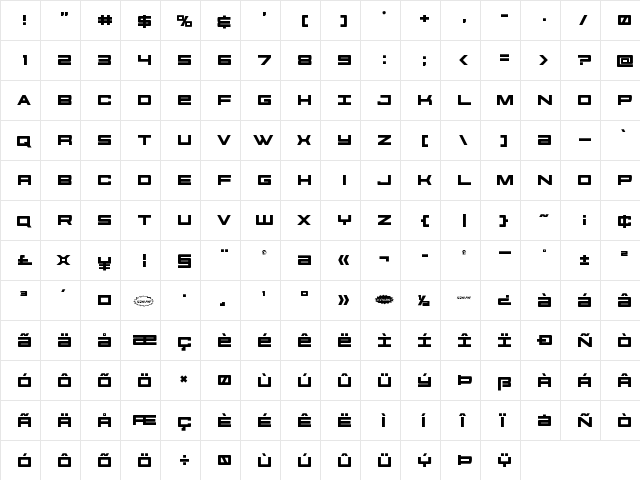
Future Forces Title Regular Font Preview
Future Forces Title Regular
Future Forces Title Regular Font Details
Design Context for Future Forces Title Typeface
Future Forces Title has a distinctly futuristic character, with geometric precision and clean angles that feel at home in technology, gaming, and sci-fi contexts.